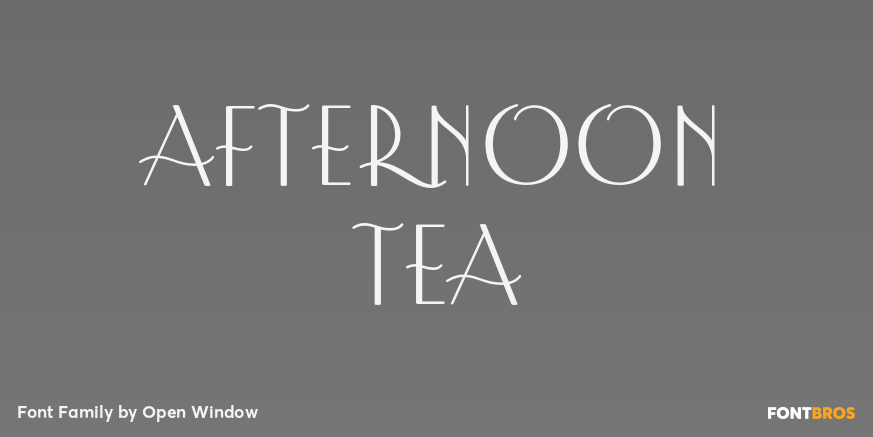
Afternoon Tea
Afternoon Tea is inspired by a lettering specimen featured in Letters and Lettering by Paul Carlyle and Guy Oring published in 1938. The striking features are the elegant balance between thick and thin strokes (demonstrating its obvious ink pen influence)…